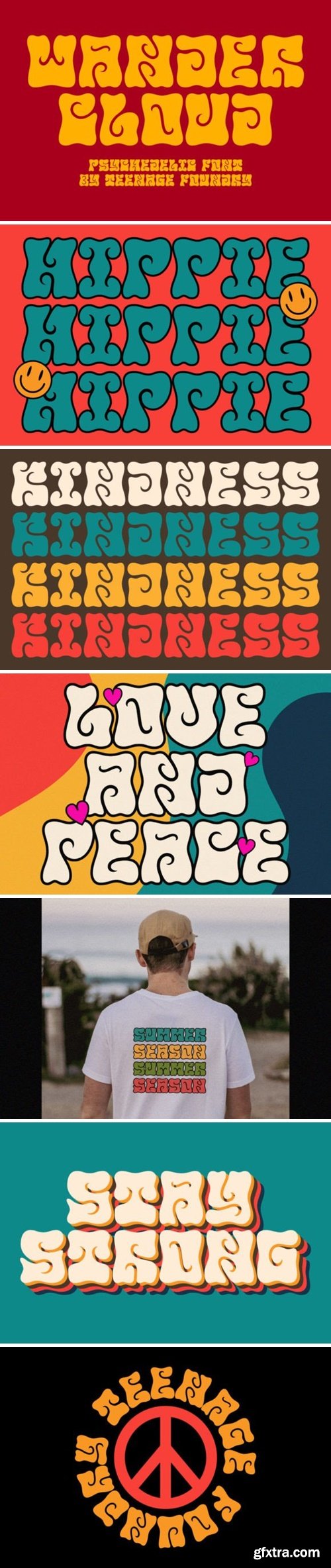
wander cloud font
Wander Cloud Font
Wander Cloud display typeface fonts – unique and innovative designs that are sure to make your project stand out! Each letter in this font is square, with elegant cuts that give the letters shape. This font is perfect for anyone looking to add a touch of modern elegance to their designs. The square shape of each letter gives the font a modern and minimalist feel, while the cuts add an extra layer of sophistication and elegance